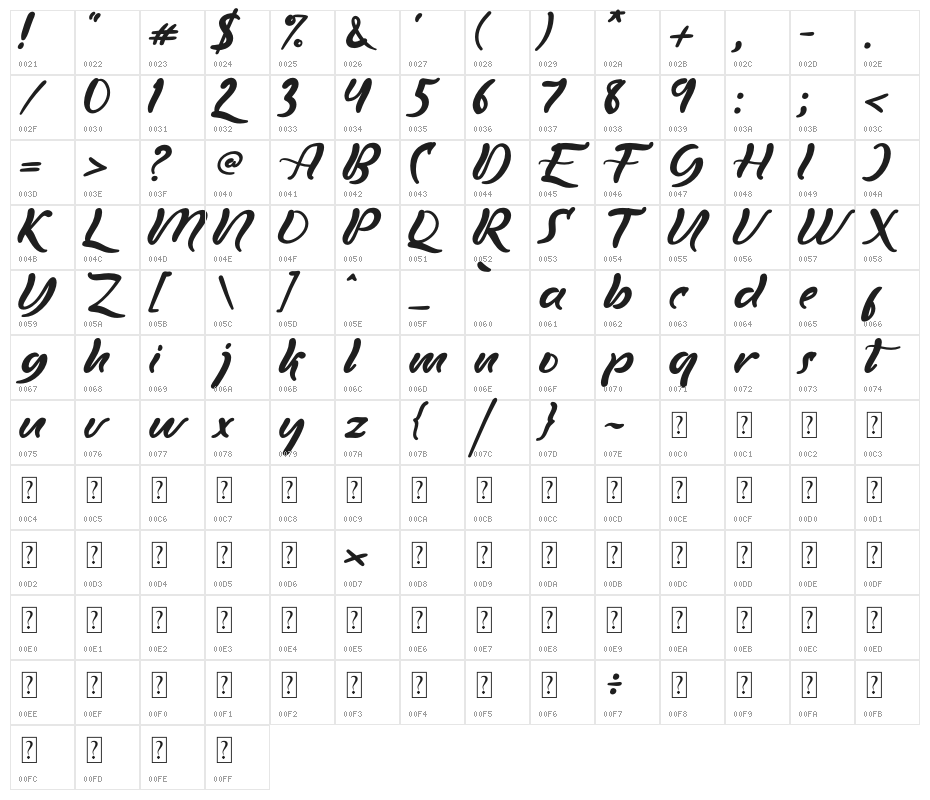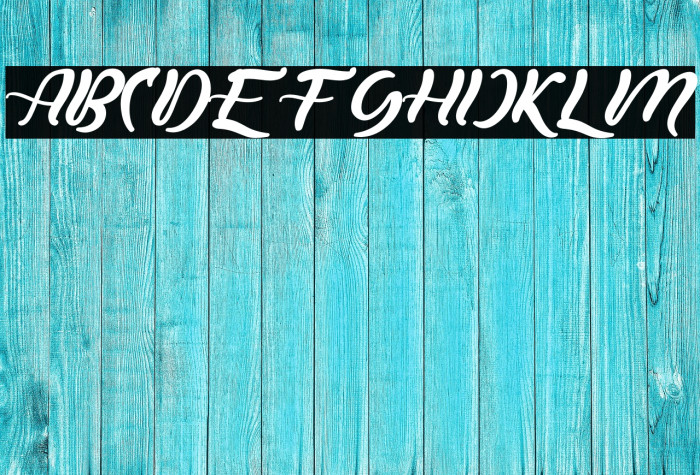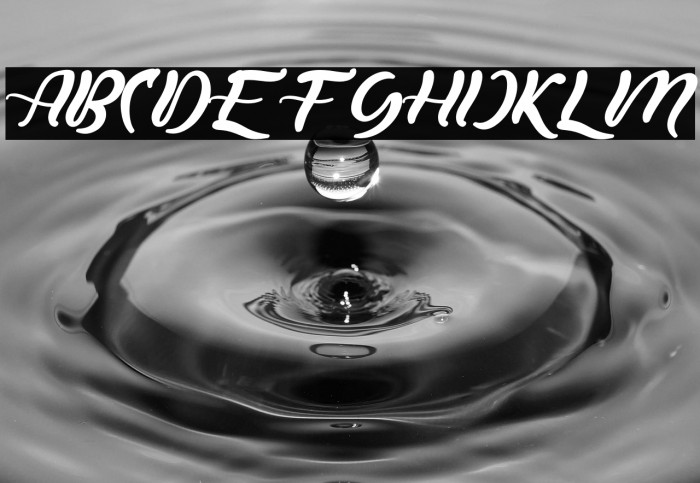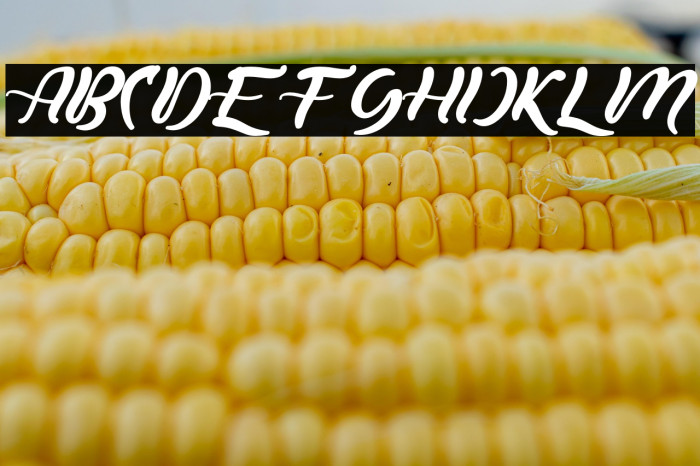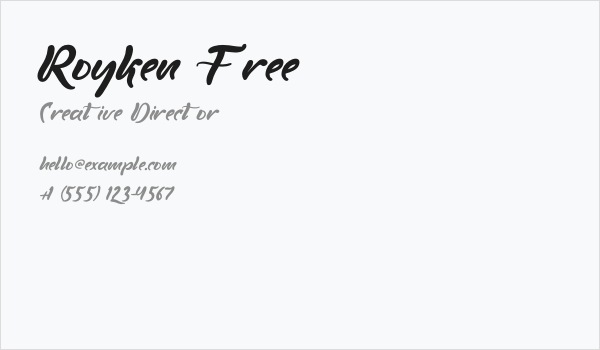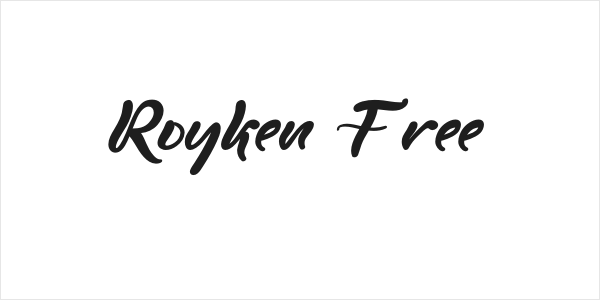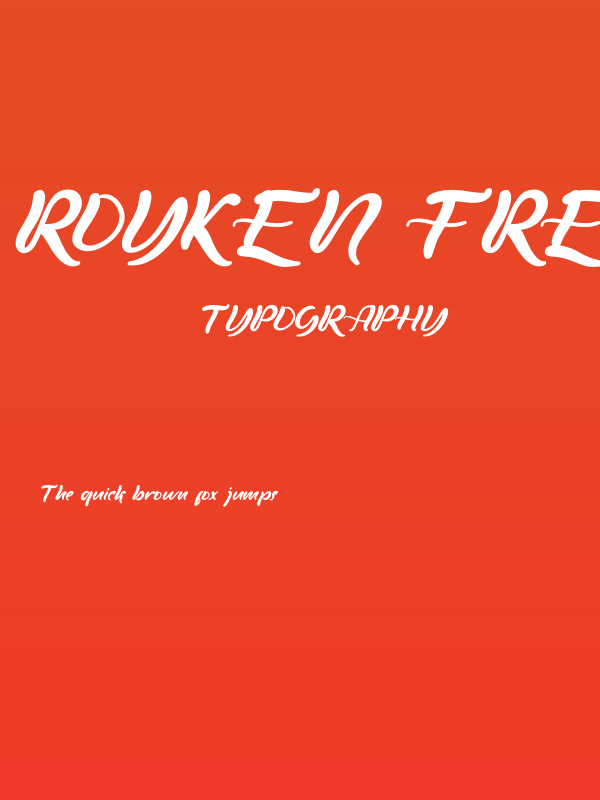
Royken Free Font
Royken Free Description
This font exhibits a dynamic and expressive style, characterized by its fluid and cursive script. The letters are interconnected, creating a sense of movement and flow. The strokes are bold and confident, with a slight slant that adds to its energetic appearance. The uppercase and lowercase letters maintain a consistent style, with rounded edges and smooth curves. The numbers and special characters are equally expressive, maintaining the overall aesthetic. This font is ideal for projects that require a personal and artistic touch, such as invitations, greeting cards, or branding materials.
Use CaseLogos, Headlines, Artistic projects
Proposed ProjectsIdeal for invitations, greeting cards, branding materials, and artistic projects.